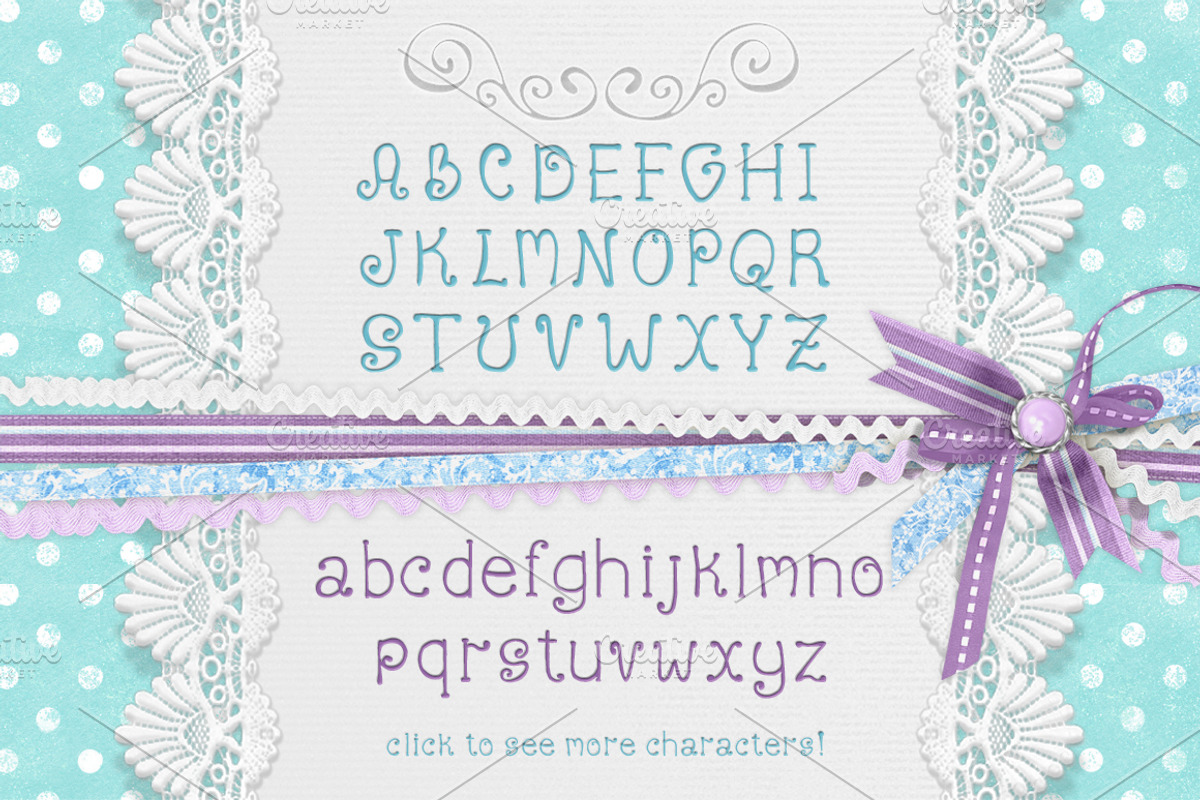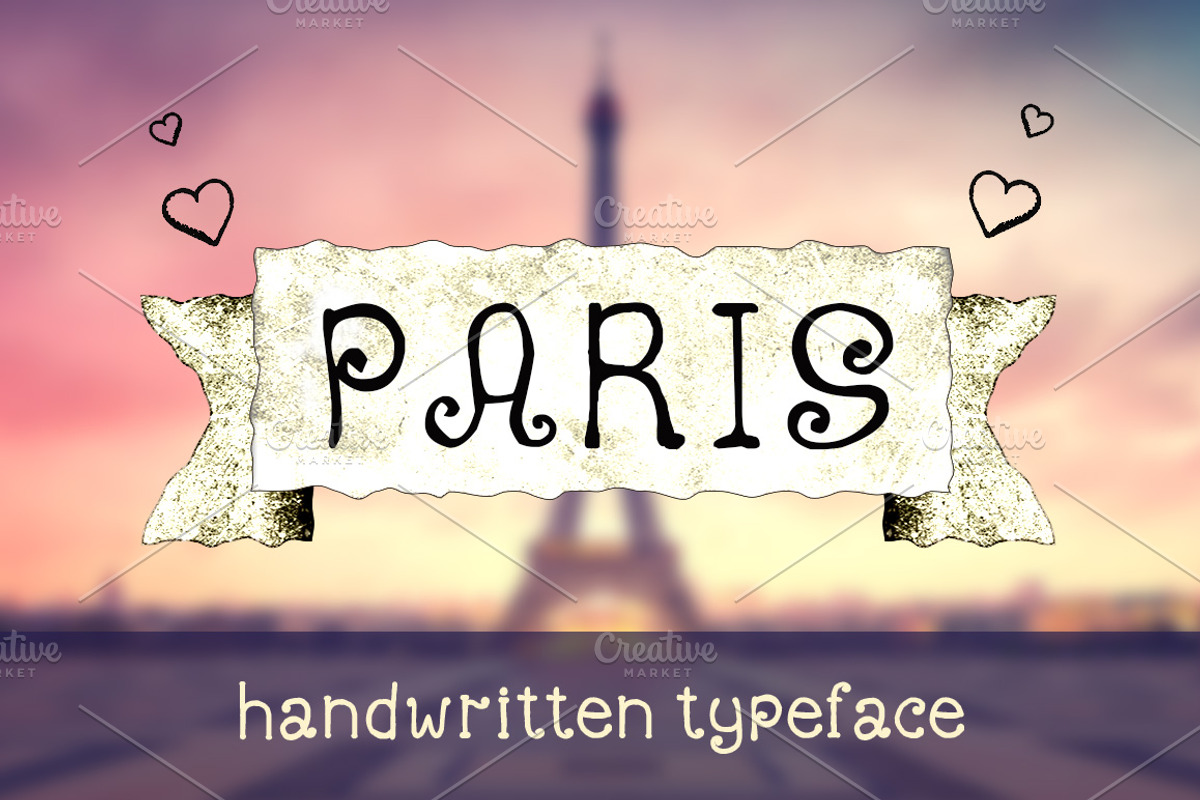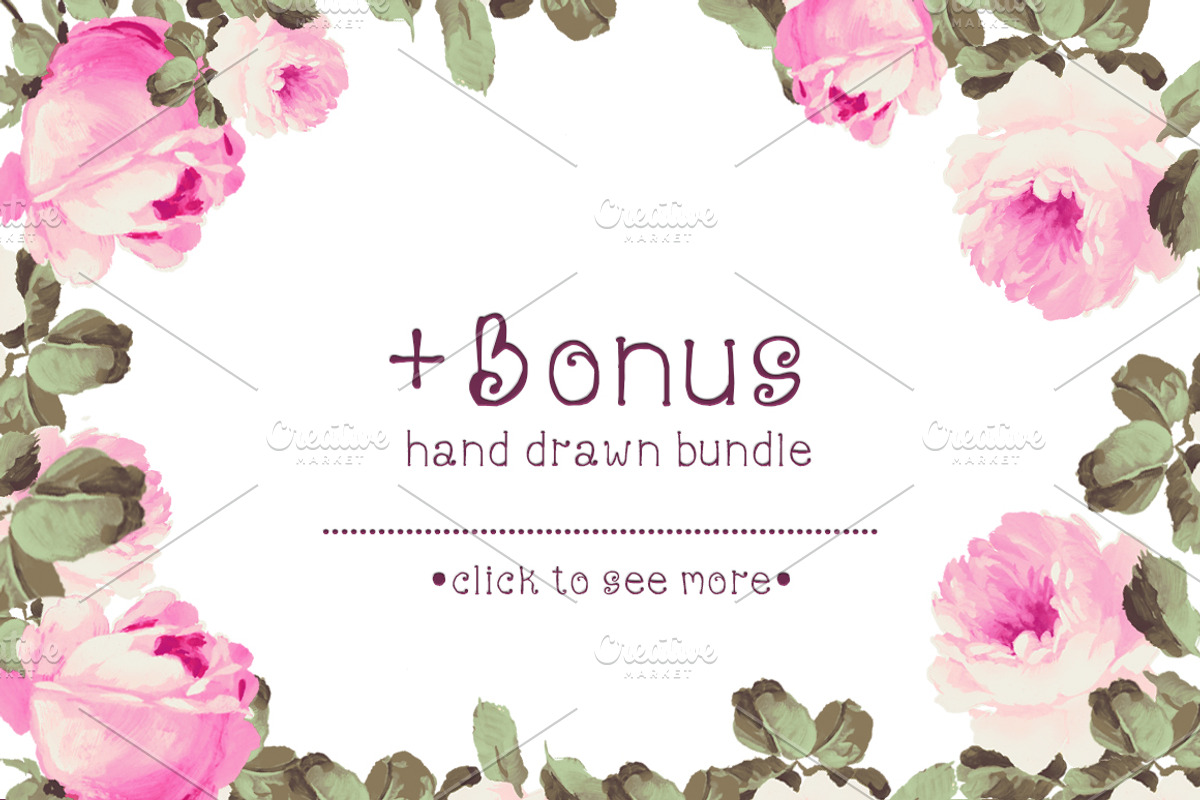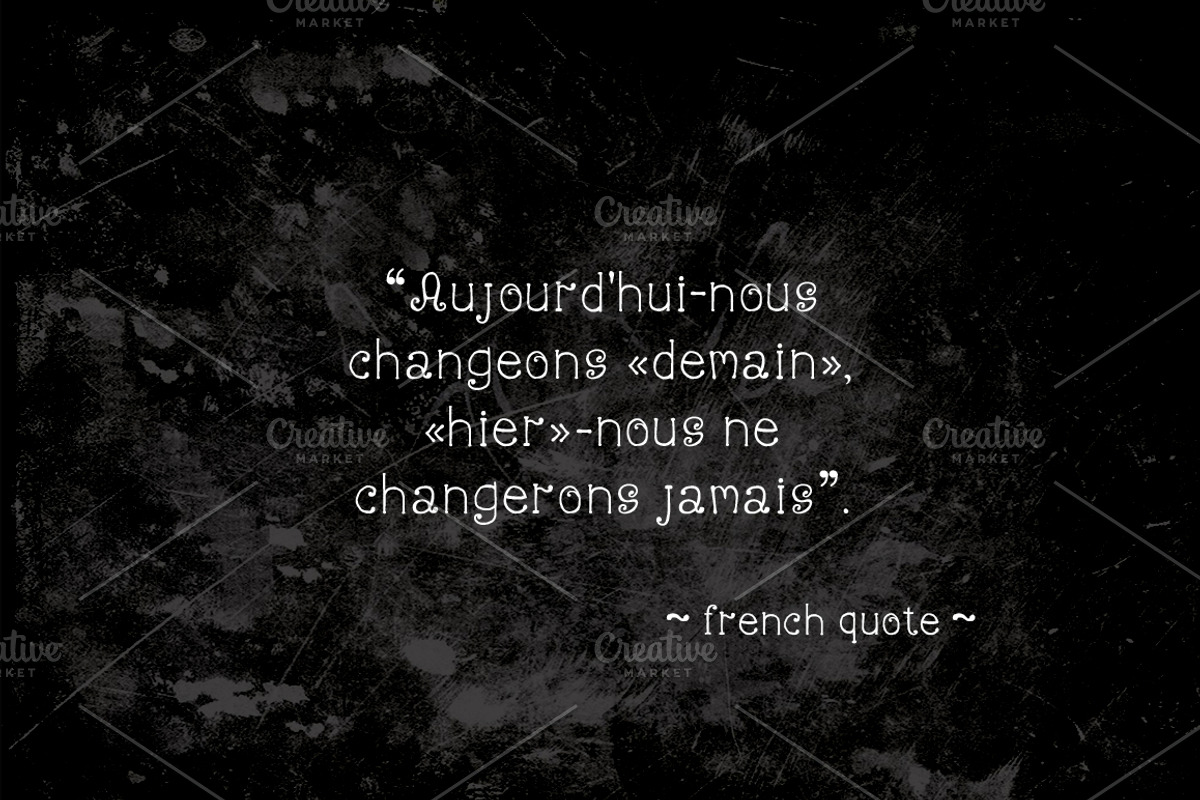
LilaParis Typeface
LilaParis Typeface by A.Lila is a font selected for branding, posters, packaging, typography.
- Excellent written and looks uppercase or lowercase or jointly.
Why LilaParis Typeface is worth a look
LilaParis Typeface by A.Lila fits naturally into Branding, posters, packaging, typography.